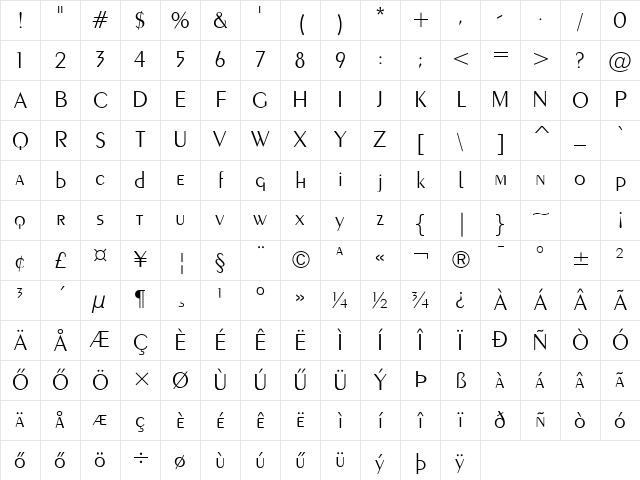
Exotic-350 Lt HU Normal Free Font
Exotic-350 Lt HU Normal
Design Context for Exotic-350 Lt HU
Exotic-350 Lt HU is a composed and adaptable typeface that performs quietly and consistently across a wide range of design contexts. Its slender proportions lend an understated elegance to any composition.